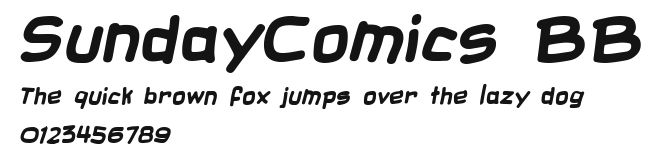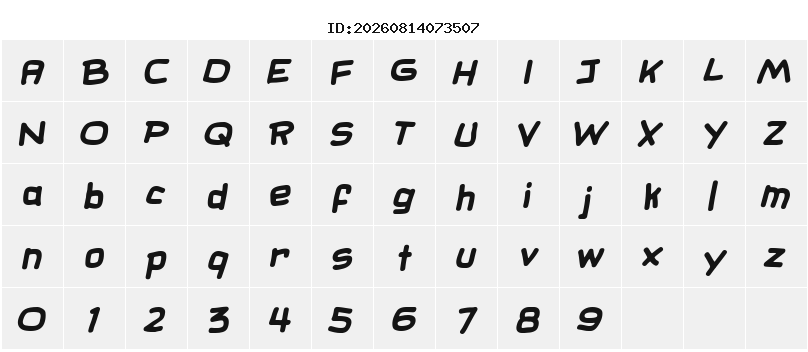
SundayComics BB Preview
• Font Name: SundayComics BB
• Font ID: NatePiekos.Blambot.com: SundayComics BB Bold: 2007
• Full Font Name: SundayComics BB Bold
• PostScript Name: SundayComicsBB-Bold
• Designer: Nate Piekos
• Manufacturer: Nate Piekos. Blambot.com
About SundayComics BB.ttf
SundayComics BB.ttf is a modern, elegant sans-serif font designed for ultimate readability and visual harmony. Perfect for branding, headlines, web design, and print materials.